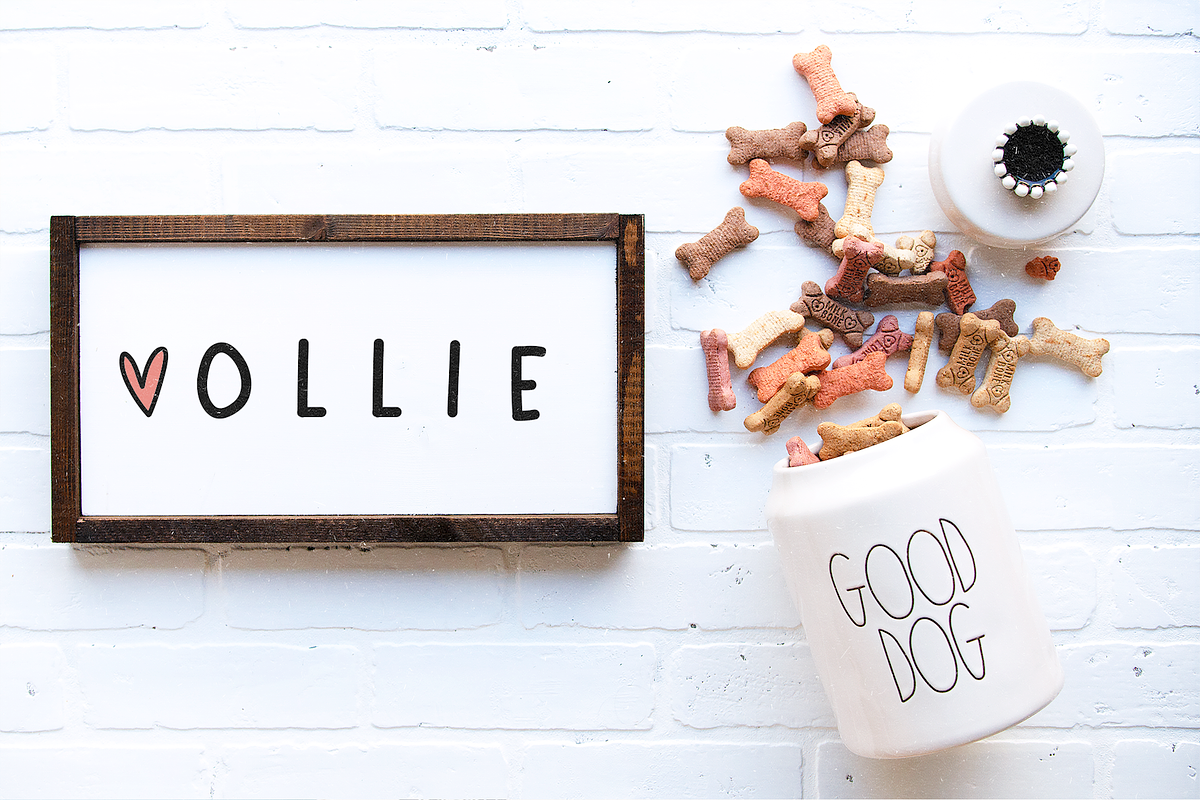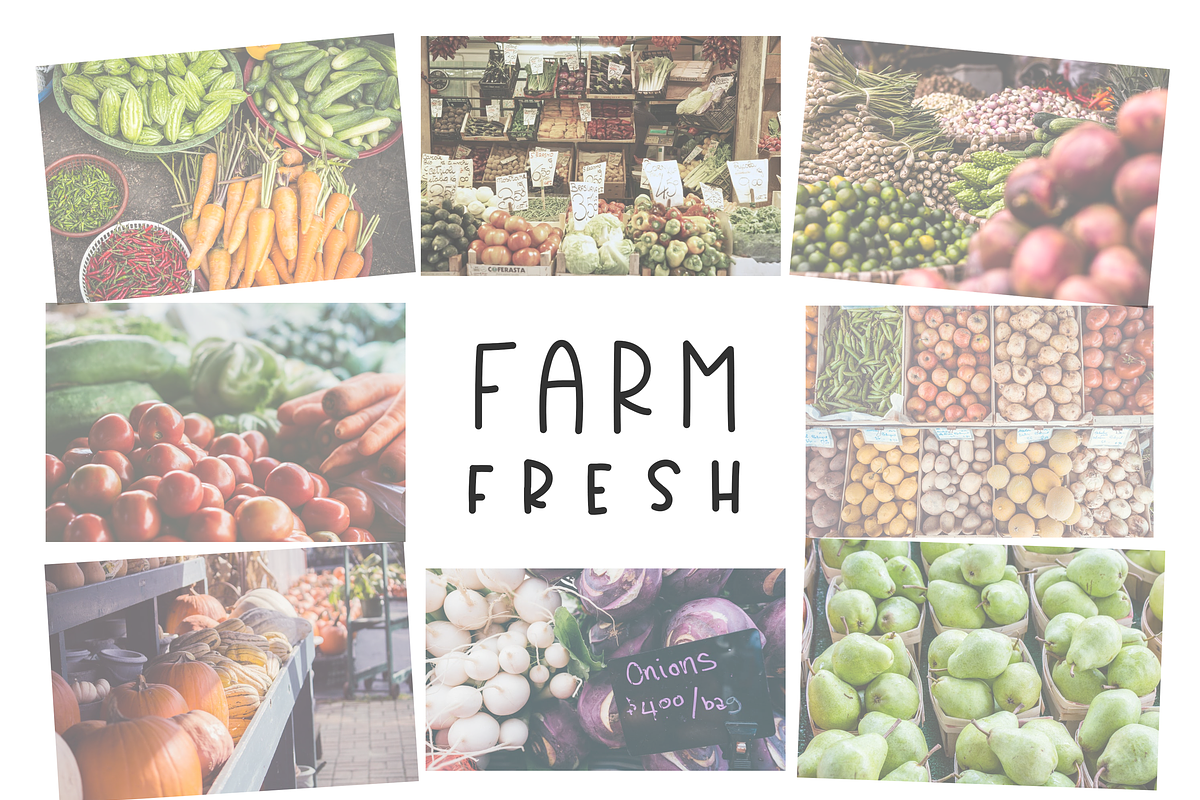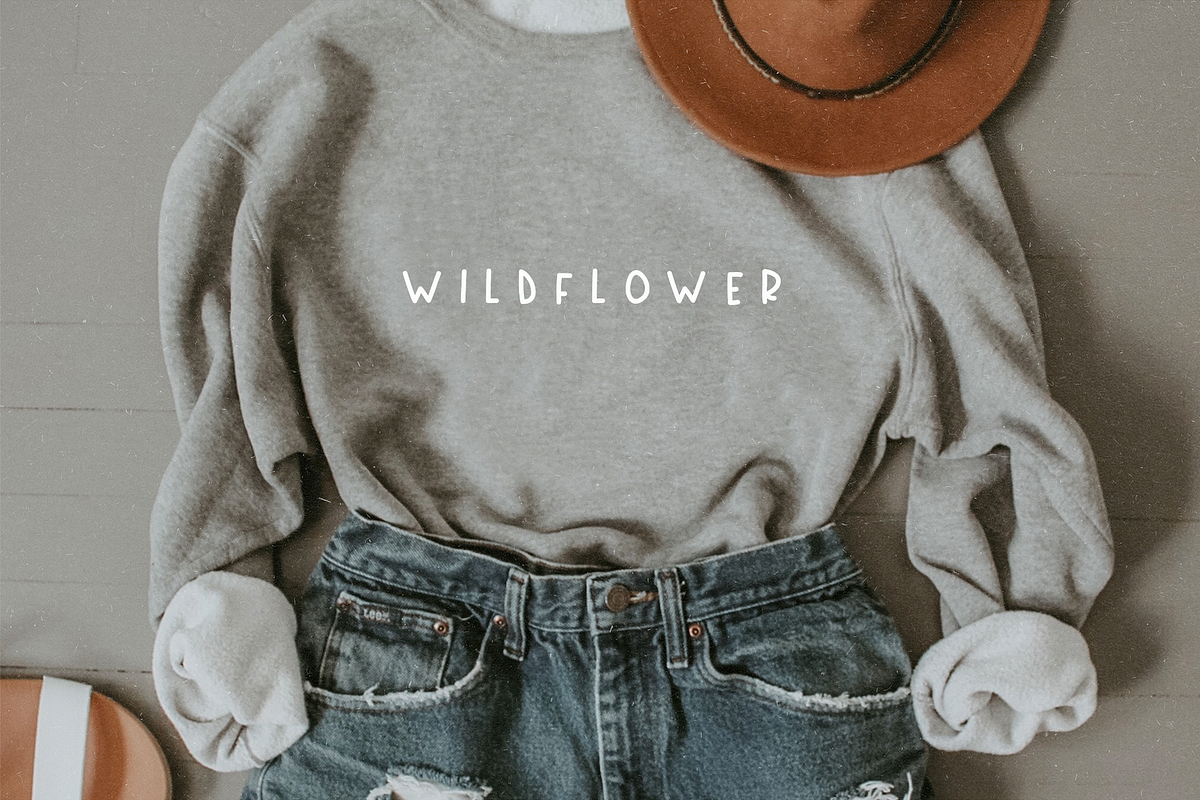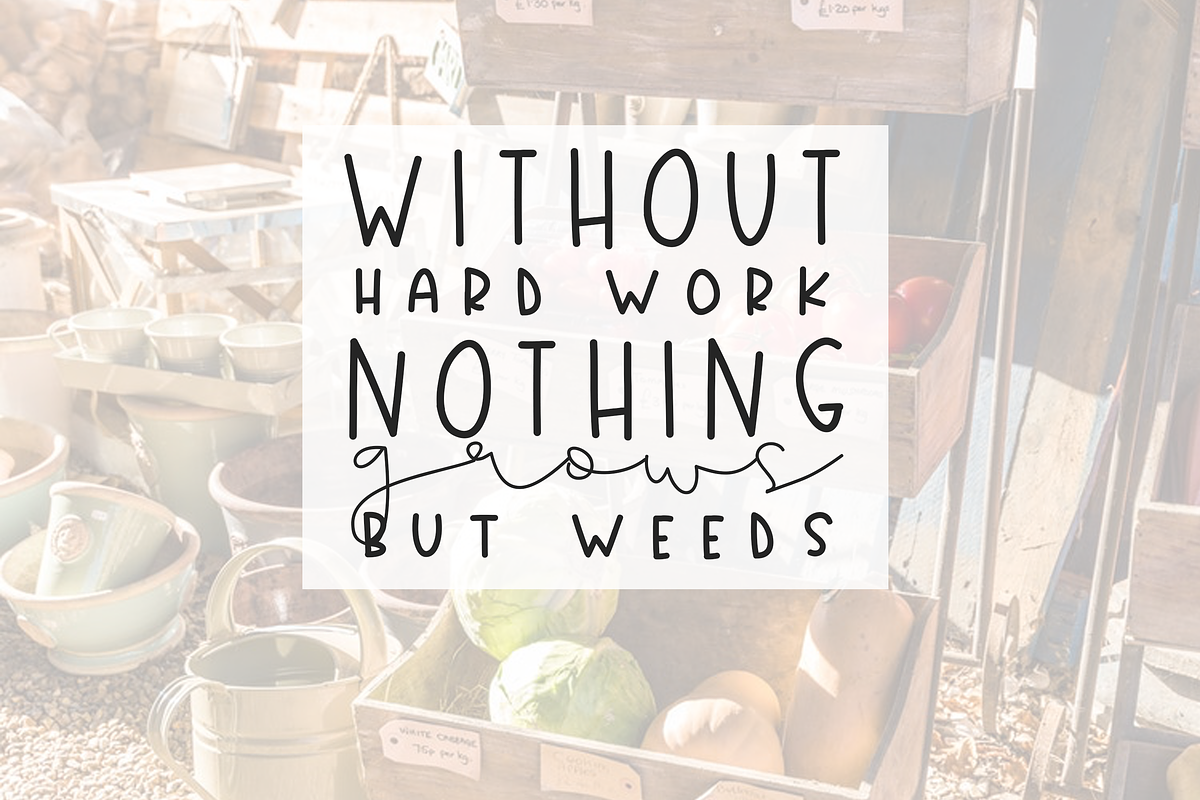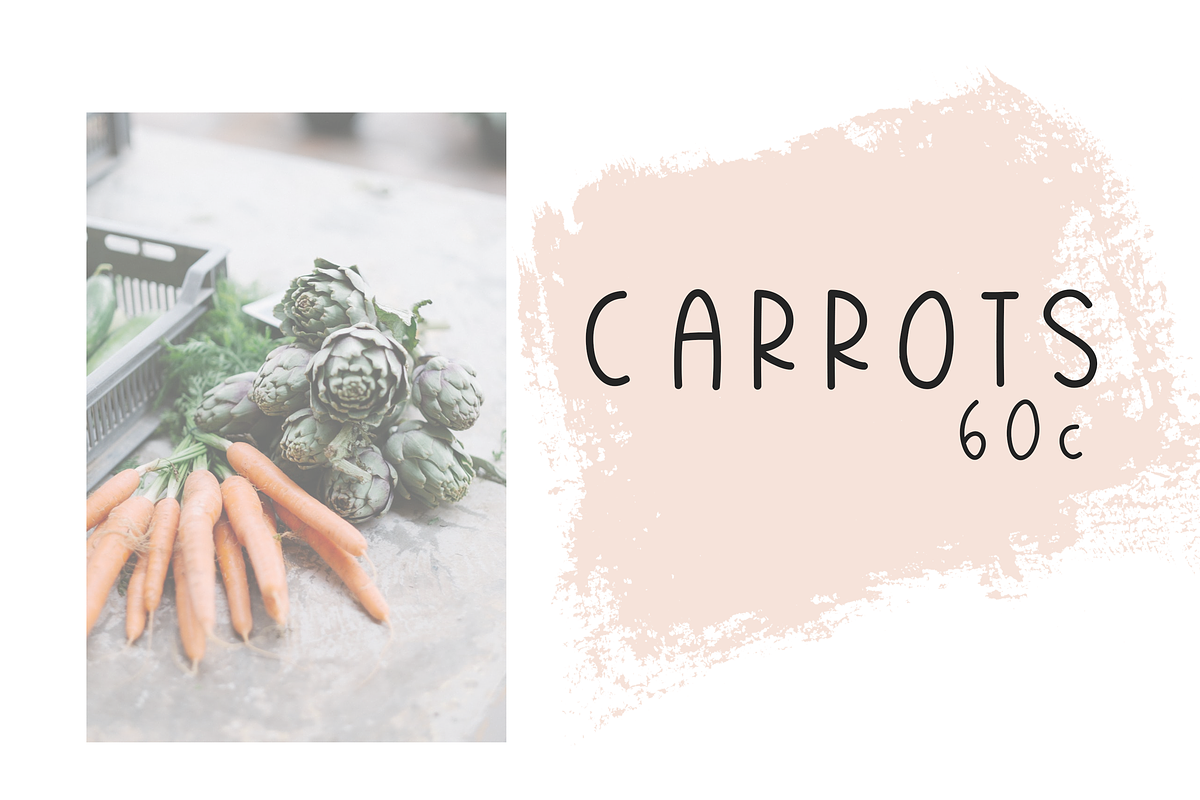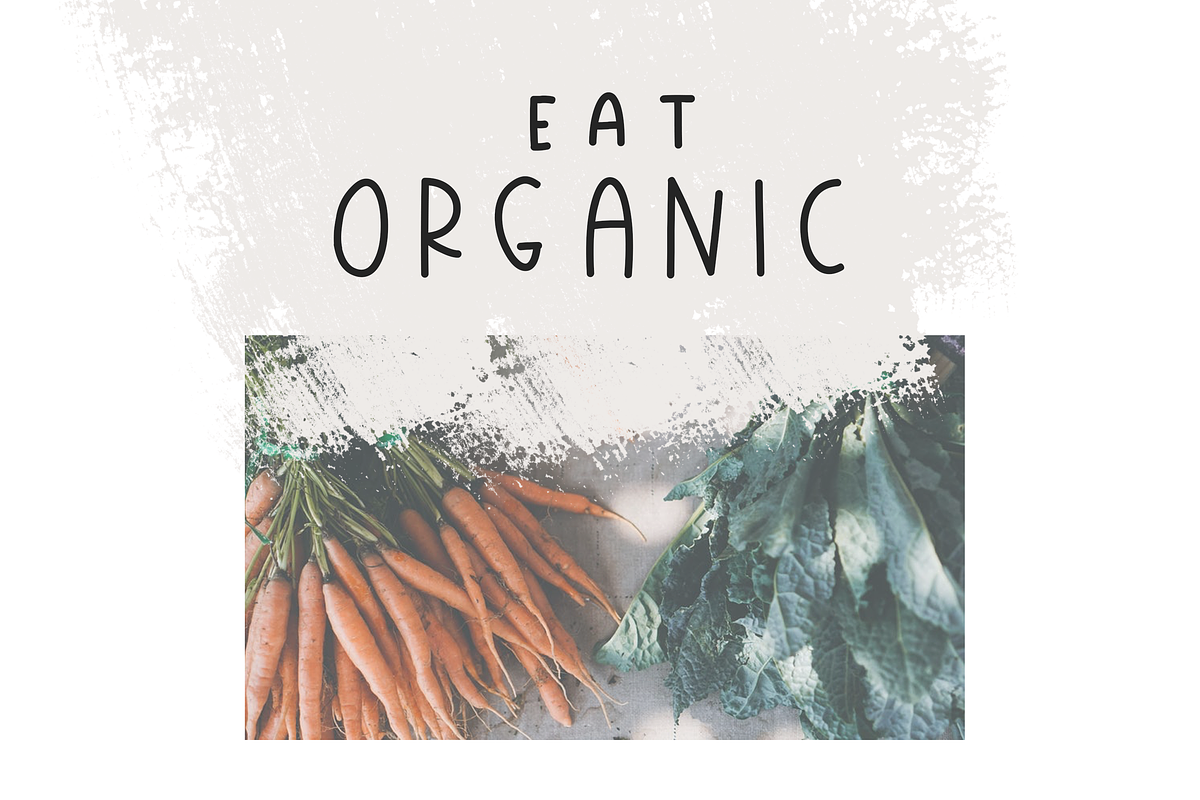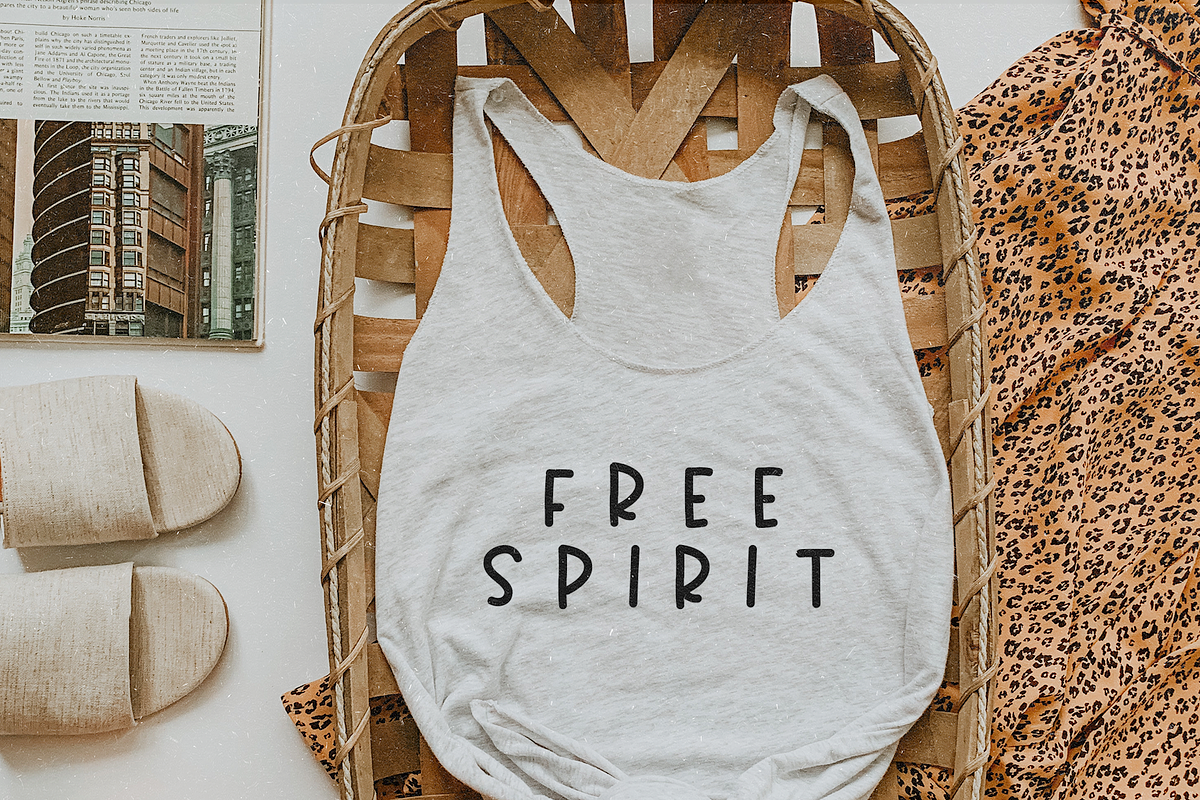
Country Market - Handwritten Font
Country Market is a handwritten display font.
It is an all caps font with the "lowercase" caps being significantly smaller in size!
This font is perfect for quotes, headings, blogs, logos, invitations and more!